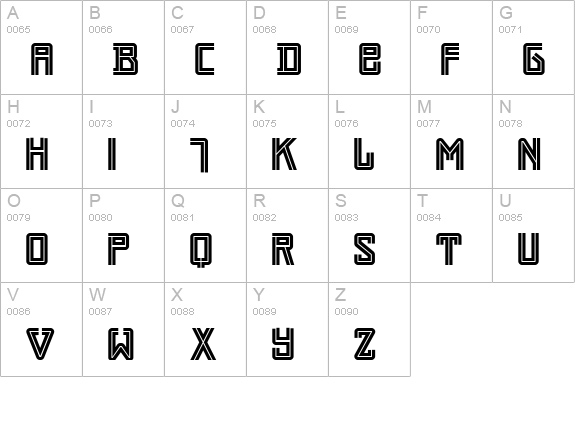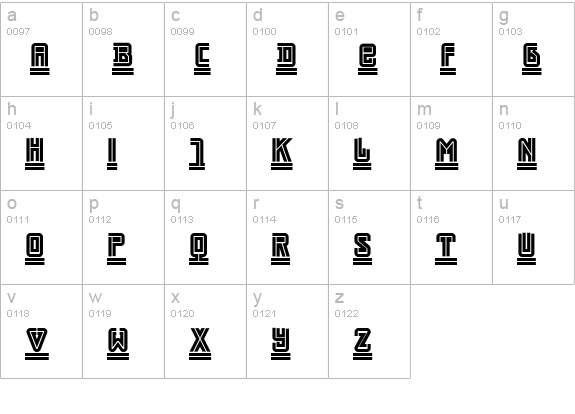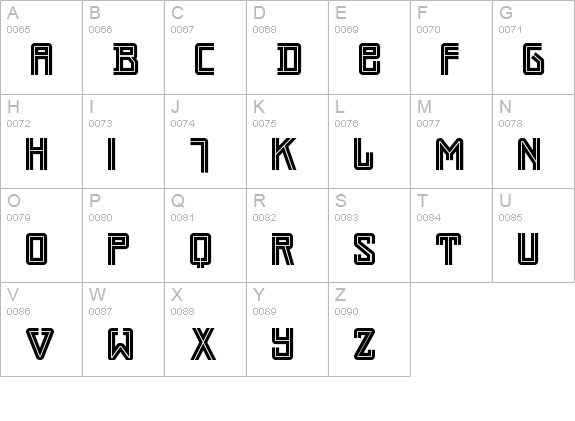
Darmstadt Arts NF Font Details
Darmstadt Arts NF is a stunning and versatile font that exudes elegance and sophistication. Its sleek lines and intricate details make it a perfect choice for a wide range of design projects, from branding to editorial design. This typeface strikes the perfect balance between modernity and classic beauty, making it a timeless addition to any designer's toolkit. What sets Darmstadt Arts NF apart is its unique flair and artistic touch, which adds a touch of creativity to any project it is used in. Its clean and crisp letterforms are easy to read, making it suitable for both display and text use. Whether you're designing a logo, poster, or website, this font will elevate your work to a whole new level. The best part about Darmstadt Arts NF is that it is free to download at FontsMarket.com. This means you can access this high-quality font without any cost, making it an excellent choice for designers on a budget. Don't miss out on the opportunity to enhance your designs with this beautiful and elegant typeface – download Darmstadt Arts NF today!